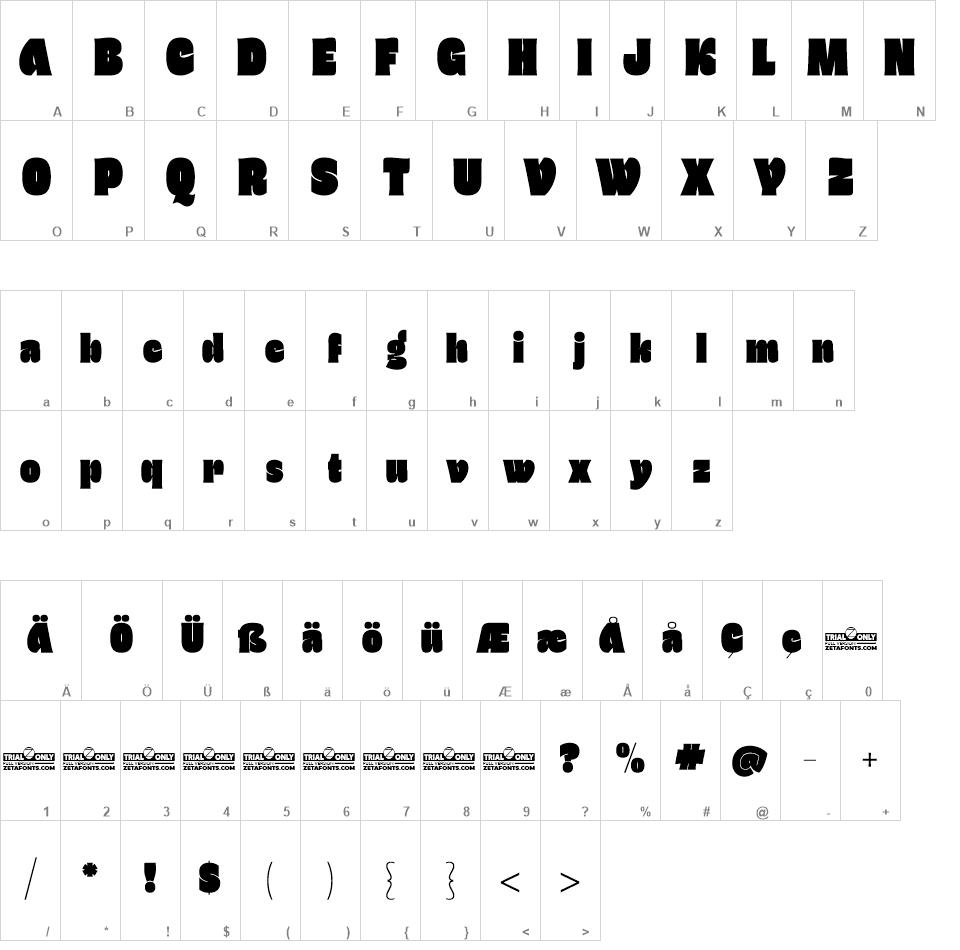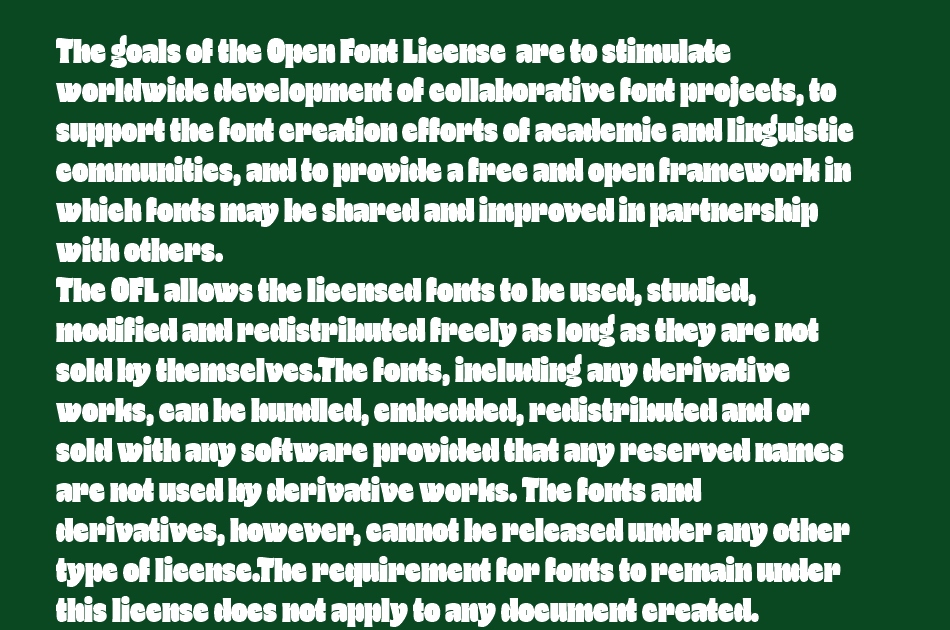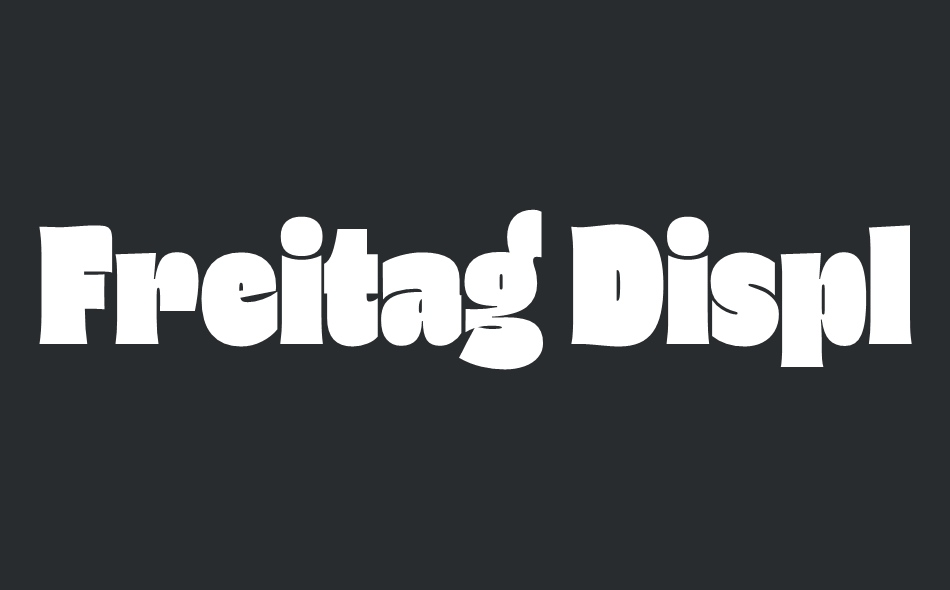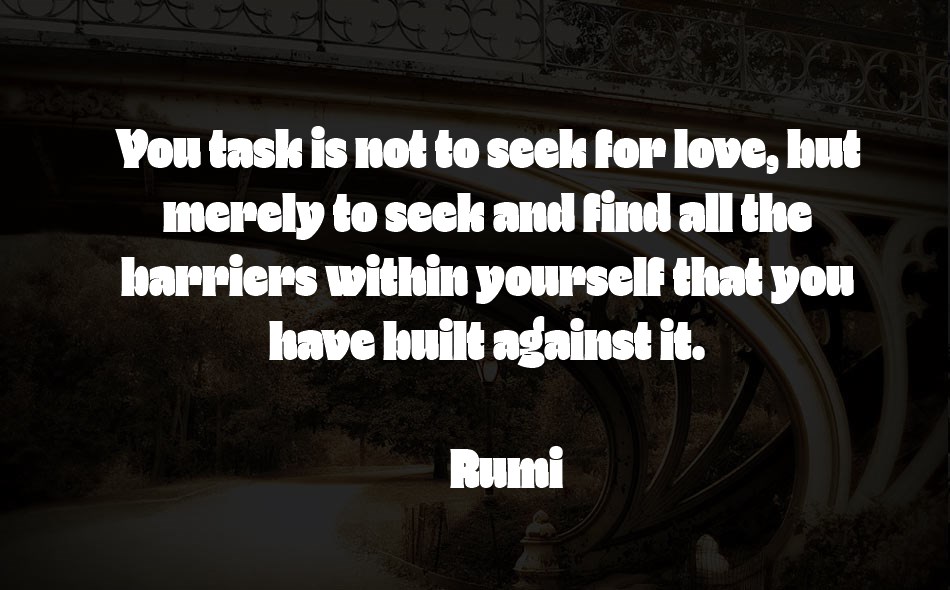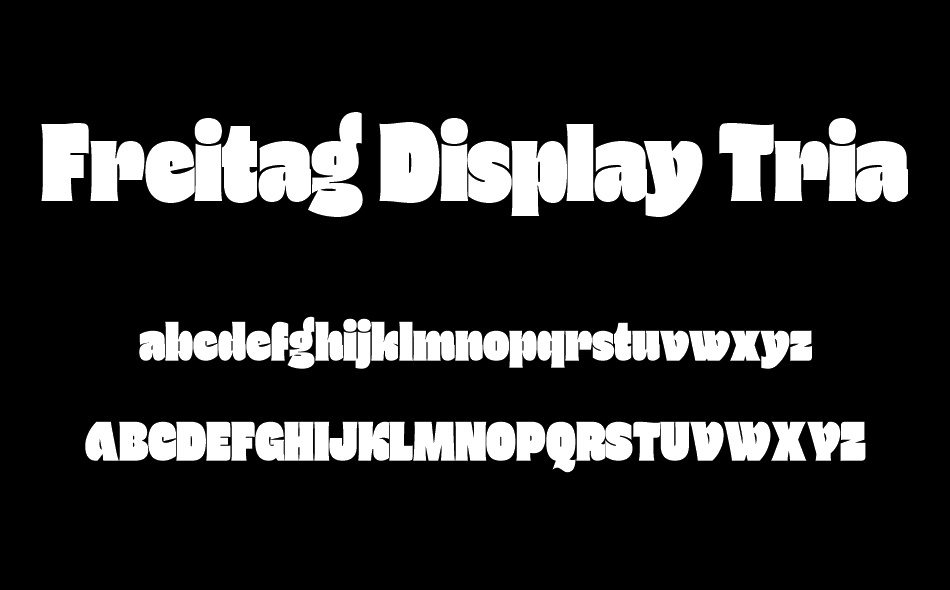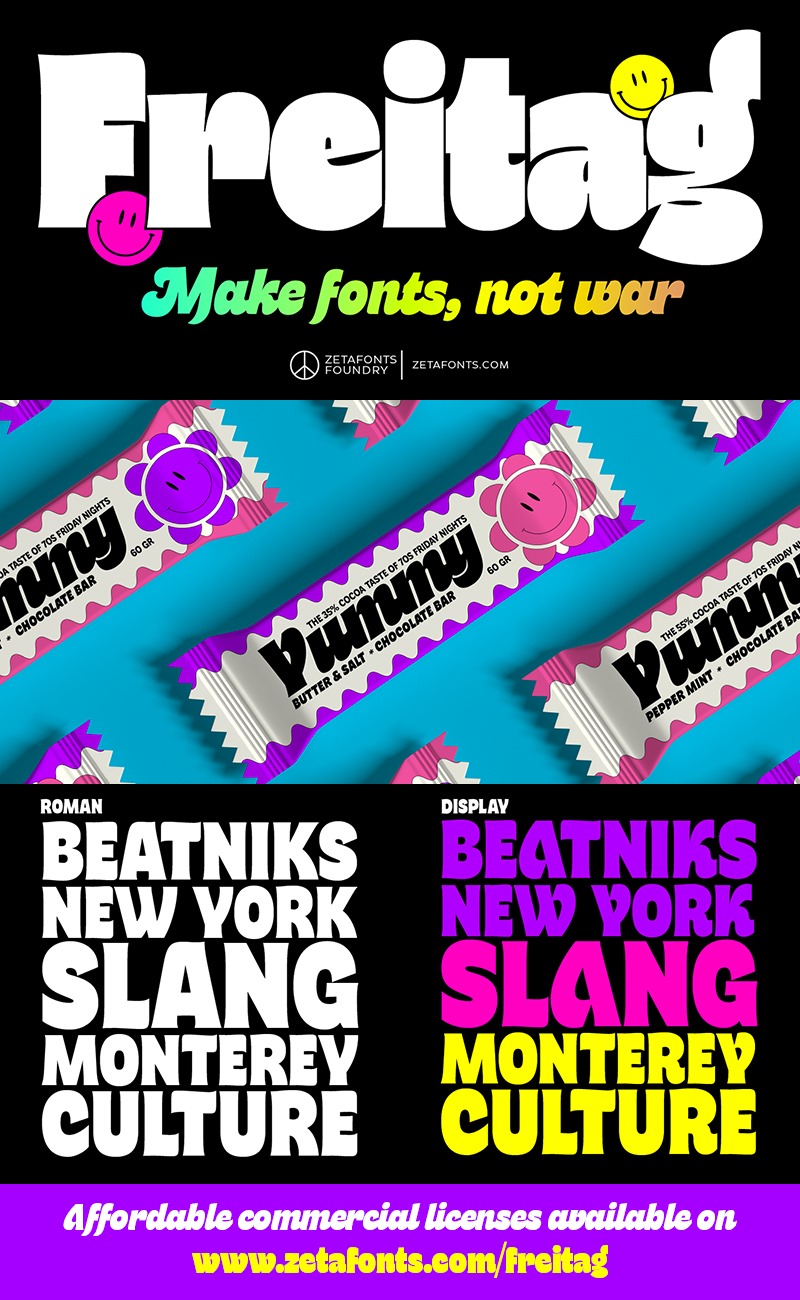
Freitag Display font
Probably as a reaction to the pragmatism of modernist design, the seventies saw an explosion of buoyant, vivacious typography. Psychedelia fueled a return to the melting, lush shapes of Art Nouveau while Pop culture embraced the usage of funky, joyful lettering for advertising, product design and tv titling. New low-cost technologies like photo-lettering and rub-on transfer required new fonts to be expressive rather than legible, pushing designers to produce, bubbly, high-spirited masterpieces, where geometric excess and calligraphic inventions melted joyfully.
Freitag is Cosimo Lorenzo Pancini's homage to this era and its typography. His starting point was the design of a heavy sans serif with humanist condensed proportions, flared stems and reverse contrast, that generated both the main family, and a variant display subfamily.